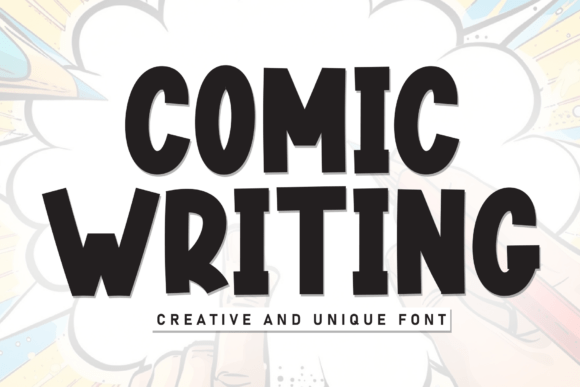
Introduction to Comic Writing Font
Introducing a delightful and amicable handwritten display font that exudes charm in every curve and line, this engaging typeface is the epitome of the words cute and fun.
Perfect for crafting delightful wedding invitations, heartwarming cards, and any other design seeking that lighthearted touch, this font effortlessly marries creativity with whimsy Immerse your unique designs in a world of playful elegance and artistic flair.
Key Features of Comic Writing Font
Why Choose Comic Writing Font?